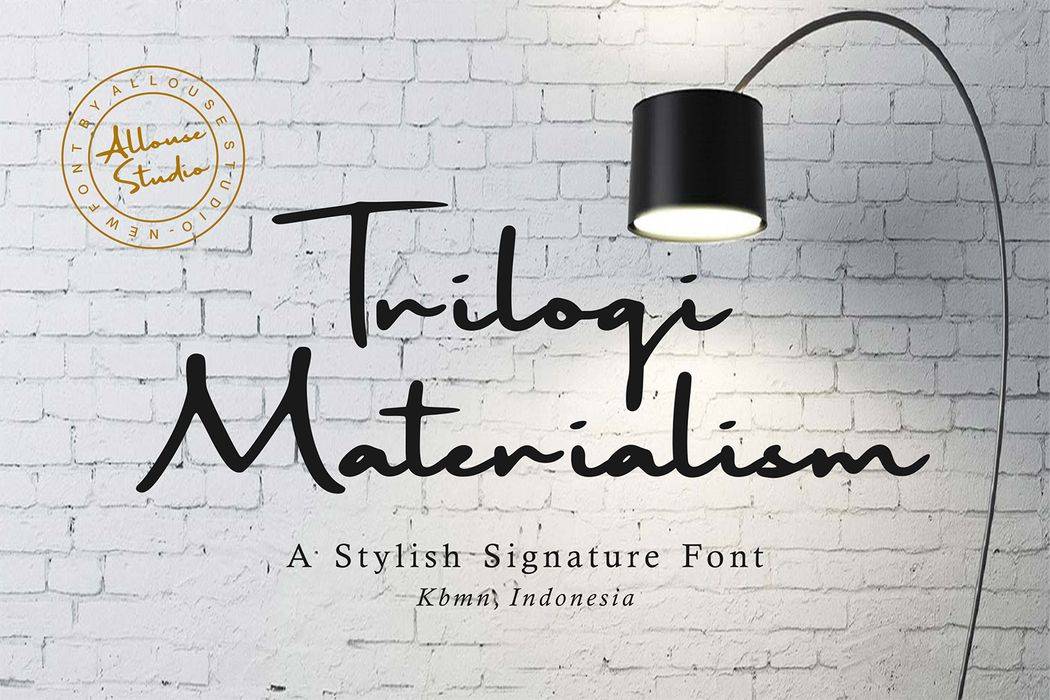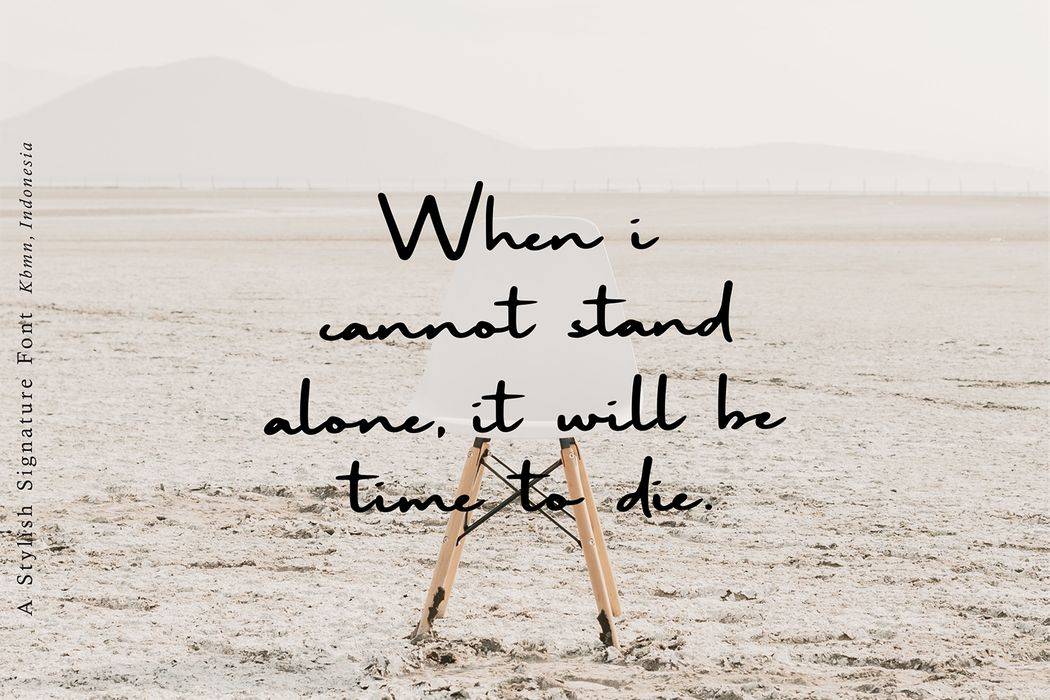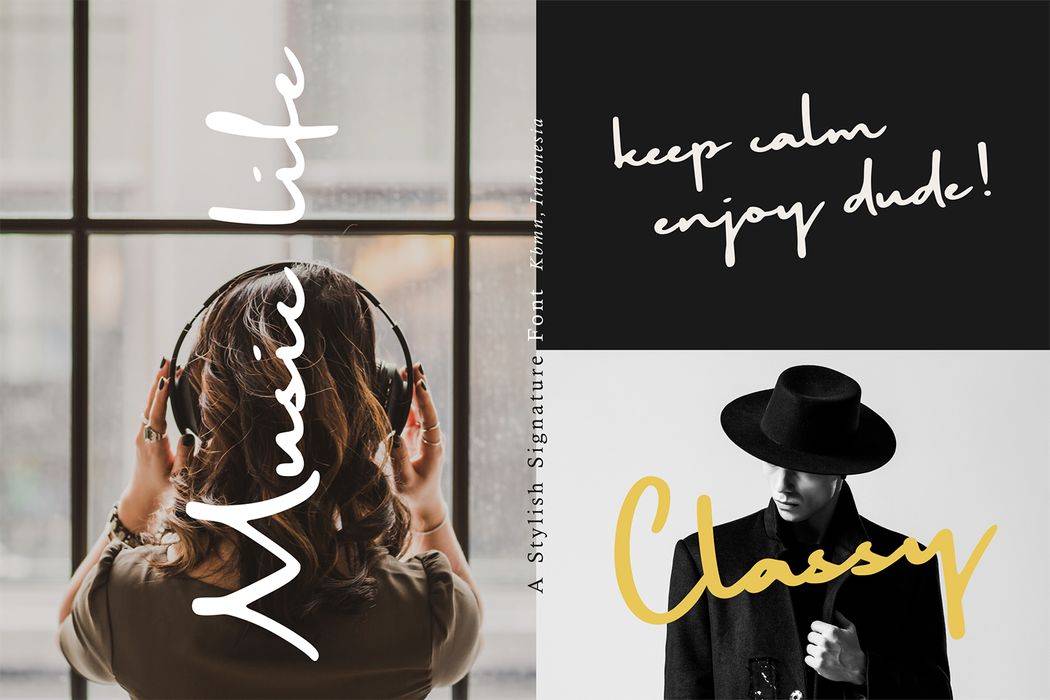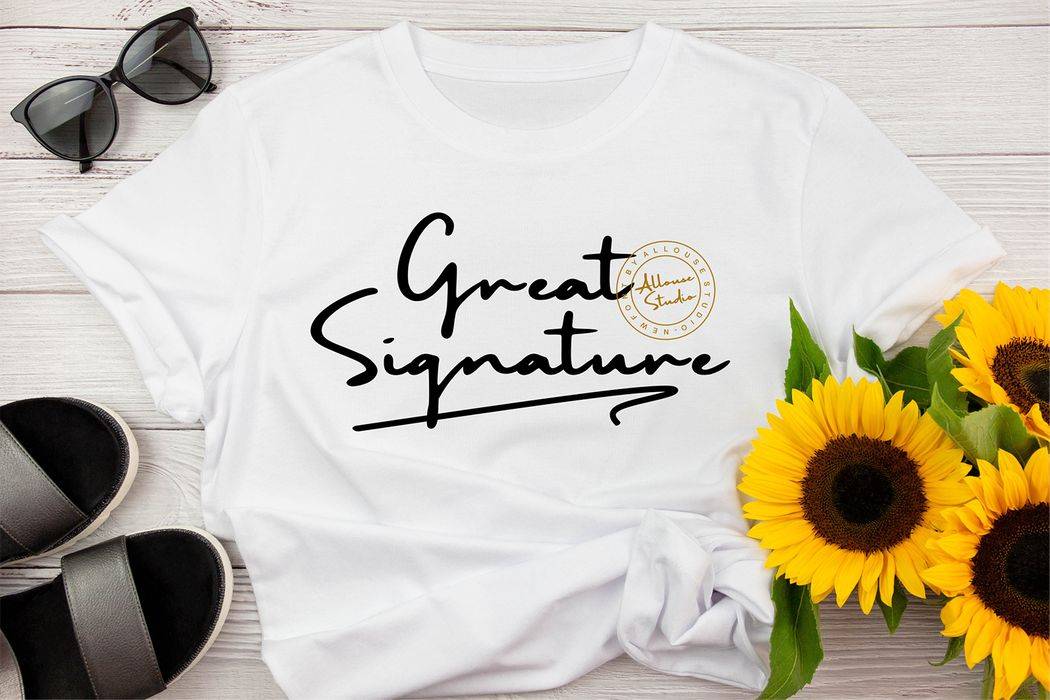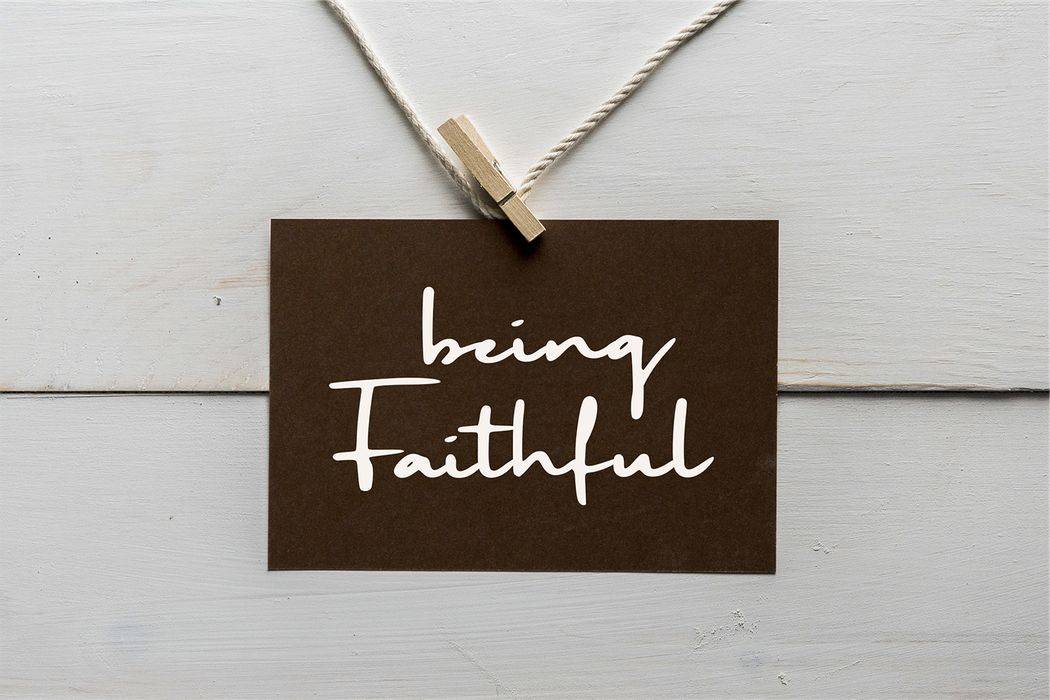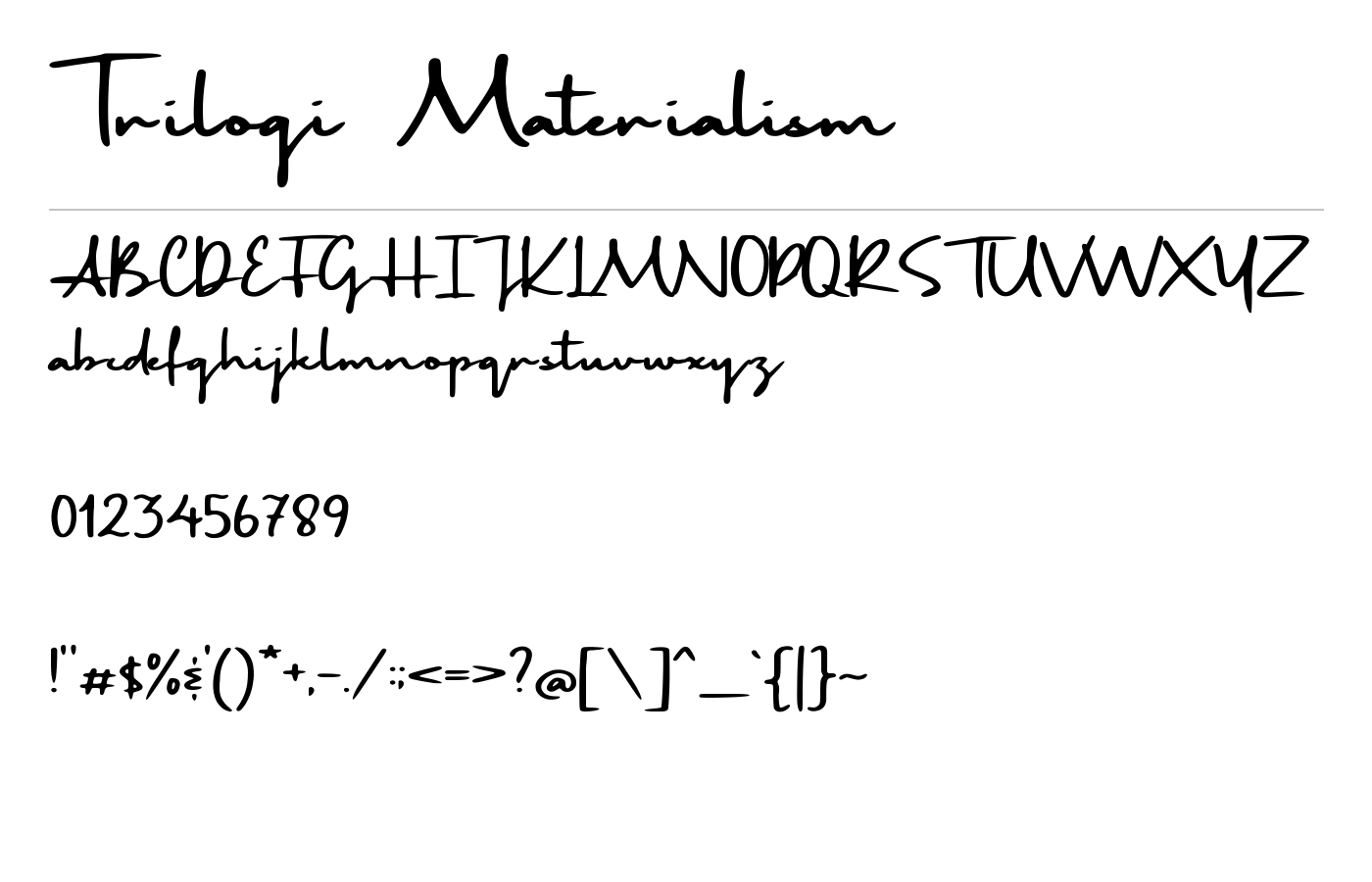
Trilogi Materialism is a casual, handwritten script font that features a lively and natural flow with varying stroke weights and slightly irregular shapes, giving it an authentic, personal touch. Its tall, narrow letters combine playful charm with clear legibility, making it ideal for creative projects, informal branding, and inviting headlines where a warm, approachable feel is desired. This font works beautifully in designs that aim to feel friendly and expressive, such as lifestyle blogs, artistic packaging, and modern invitations.
Trilogi Materialism Font
About Trilogi Materialism Font